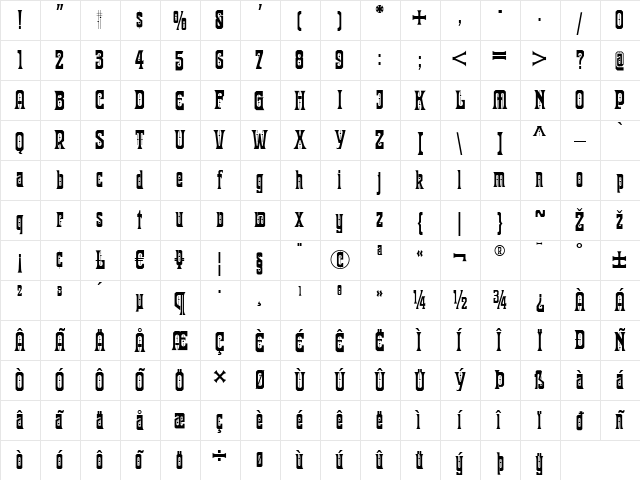
Kunstgewerbe NF Regular Font Preview
Kunstgewerbe NF Regular
Design Context for Kunstgewerbe NF Typeface
Kunstgewerbe NF is a composed and adaptable typeface that performs quietly and consistently across a wide range of design contexts.